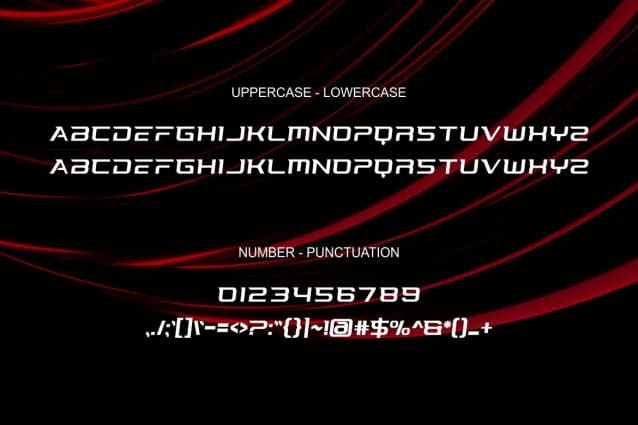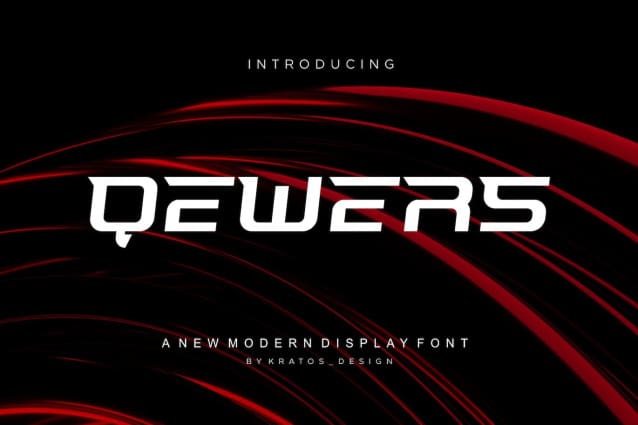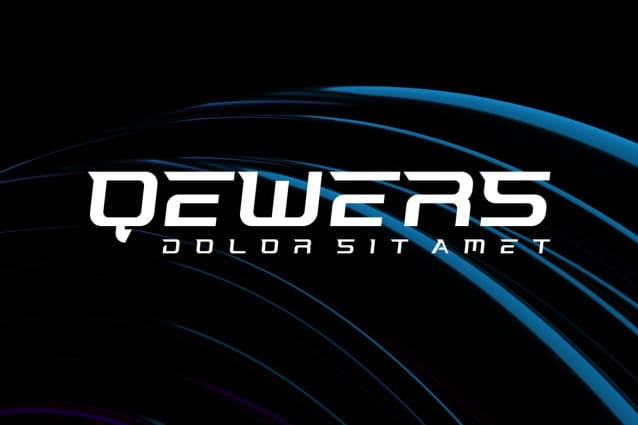
Qewers Futuristic Font
Qewers Futuristic Font – Modern Font is a bold and authentic display font. The font is suitable for any branding project like logo, Template Design, Product and many more. outstanding in a wide range of contexts.